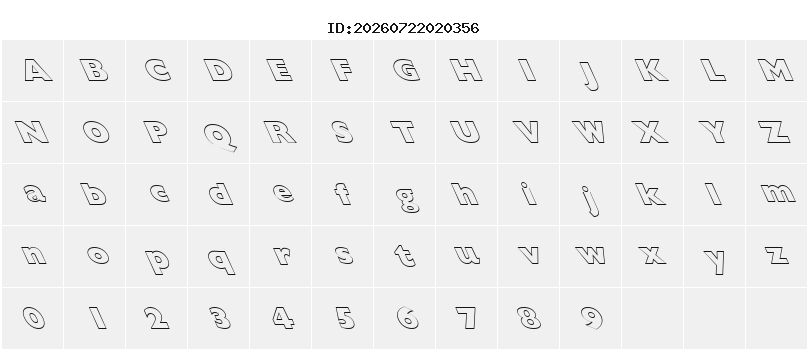
FZ BASIC 57 HOLLOW LEFTY Preview
• Font Name: FZ BASIC 57 HOLLOW LEFTY
• Full Font Name: FZ BASIC 57 HOLLOW LEFTY
About FZ BASIC 57 HOLLOW LEFTY.ttf
FZ BASIC 57 HOLLOW LEFTY.ttf is a modern, elegant sans-serif font designed for ultimate readability and visual harmony. Perfect for branding, headlines, web design, and print materials.